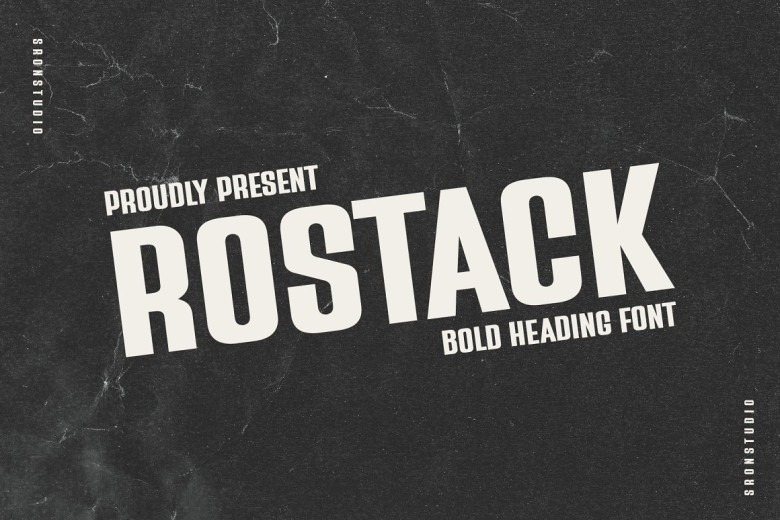
Rostack Font
“Rostack” is an eye-catching condensed font. It draws immediate attention and makes an imposing statement, perfect for titles, headlines and designs requiring condensed yet bold styles. “Rostack’s” modern sophistication will help convey your message effectively.
Rostack Display Font